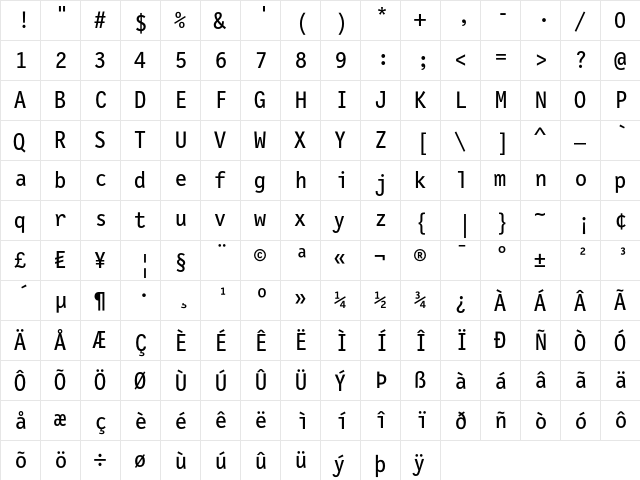
LetterGothicMono Regular
Design Context for LetterGothicMono Typeface
LetterGothicMono uses fixed-width spacing throughout, giving it the structured, systematic character associated with coding environments and technical documentation.
Pro Tip: Use LetterGothicMono with slightly increased line-height for extended reading — fixed-width spacing can feel dense in longer passages without extra breathing room.